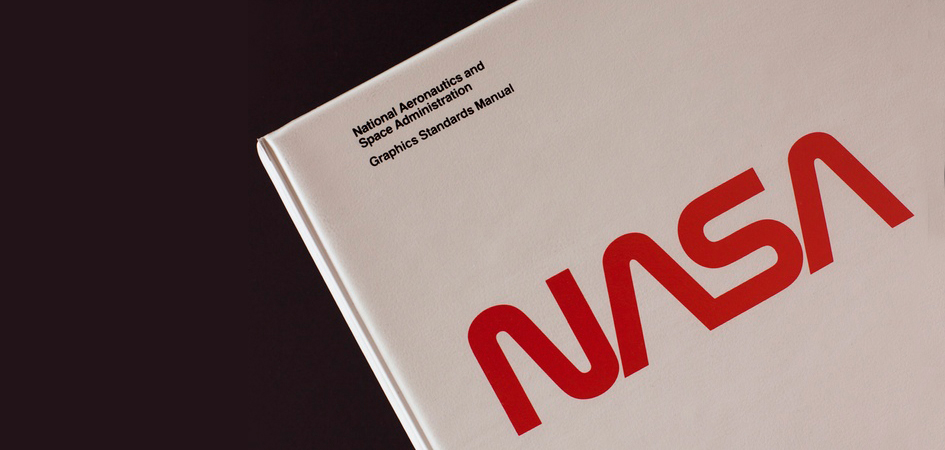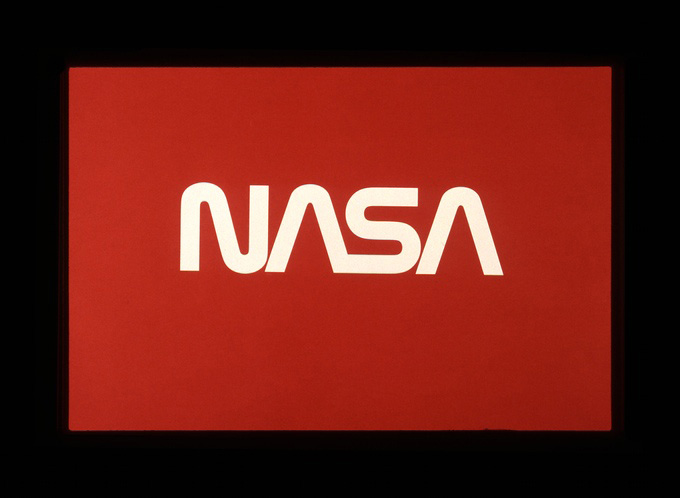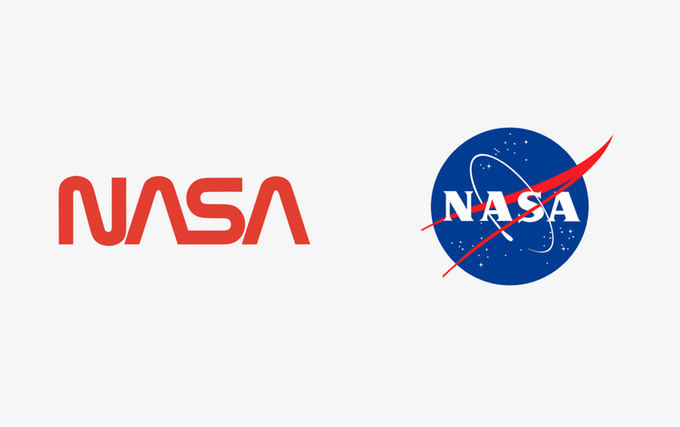
Launching! NASA’s long-forgotten design manual is yours to own
Was Nixon a President who appreciated good design and acknowledged the importance of branding? This may be the case as it was during his administration in the early ’70s when U.S. government departments were asked to raise the standard of design and communications with the National Endowment for the Arts Federal Graphics Improvement Program. Eventually NASA’s fragmented, old-fashioned visual identity was one of the first cases to be examined.
“The agency approached a young, small New York City–based firm run by Richard Danne and Bruce Blackburn to present a proposal for a brand-new visual identity for NASA, and in 1974, their work—the NASA Graphics Standards Manual, with instructions on designing everything from letterheads to space shuttles—was approved” says Slate’s Kristin Hohenadel. “The signature of NASA’s visual identity was the memorable logo known as The Worm which was jettisoned in 1992 and replaced with NASA’s original logo, known as The Meatball.”
NASA’s Worm “consists of NASA’s initials portrayed in super-simple letters stripped to absolute essentials. There aren’t even any crossbars on the A’s, which are depicted as upturned V’s, rather like rockets ready for liftoff. Each letter is composed of a tube, with the first A flowing into the S, as if speeding off into space. The word mark is in a confident shade of red, occasionally with NASA’s full name written below in black Helvetica, the default typeface for any 1970s corporation with aspirations to modernity. Everything about the Worm is seductively new, optimistic and futuristic, declaring that NASA is leading us toward a brighter, bolder future” wrote NYT’s Alice Rawsthorn on the controversial, thick-lettered branding.
Today, 23 years after its dethroning and almost 41 years after it was conceived the ring-binder manual is being reborn as a hardcover book by Pentagram designers Jesse Reed and Hamish Smyth.
The duo behind the highly successful New York City Transit Authority Graphics Standards Manual Kickstarter campaign, are on a mission to revive another iconic body of work.
Their (already successfully funded) funded aims to celebrate the work of Richard Danne and Bruce Blackburn (of Danne & Blackburn) as presented thoroughly in this so retro it hurts aka NASA's Graphics Standards Manual.
“As design nerds, we think the Worm is almost perfect, and the system behind it is a wonderful example of modernist design and thinking. The Worm and its design system represent an agency whose goal is to explore space and push the boundaries of science. Where the Meatball feels cartoon-like and old fashioned; the Worm feels sleek, futuristic, forward-thinking. All good things for a space agency at the bleeding-edge of science and exploration” note the designers who appreciate the manual's rational, systematic design.
“The NASA manual is one of those examples that sets the standard for design excellence—a document well worth preserving for the future as a learning tool, a gorgeous object, and a moment in design history” they add.
The reissue “is not sponsored or endorsed by NASA and is an independent project undertaken in an effort to preserve and disseminate an archival record of graphic design from the era”.
“Growing up with the ‘Worm’ logo on toy shuttles and learning about sky lab when we were younger. Fast forward to design school, the NASA manual was embedded in our foundation of superior design thinking—it represented the kind of work we wanted to do as professionals” said Reed.
Eventually this long-lost manual book, full of typefaces and diagrams and grids has evolved into a treasure hunt. Coincidence or not, just a couple of day's after the launching of the crowdfunding campaign, NASA released a PDF of the document for free.
“We can’t say the move is directly responding to our project, but it’s safe to suspect they are related,” Reed told Motherboard.